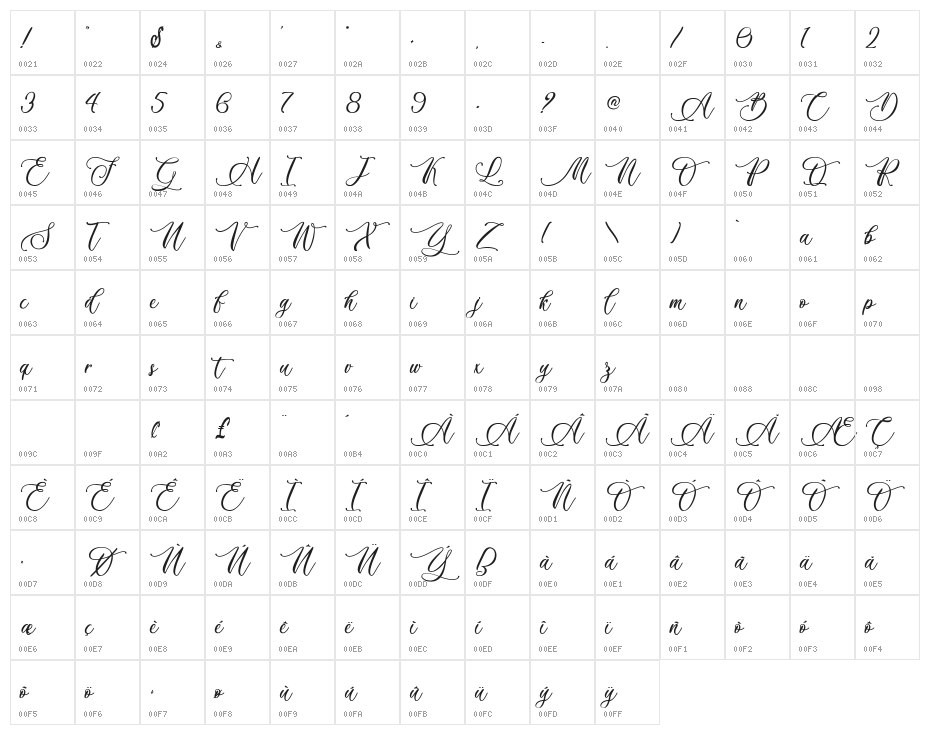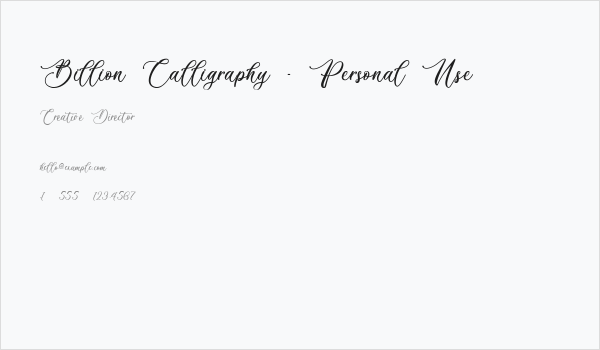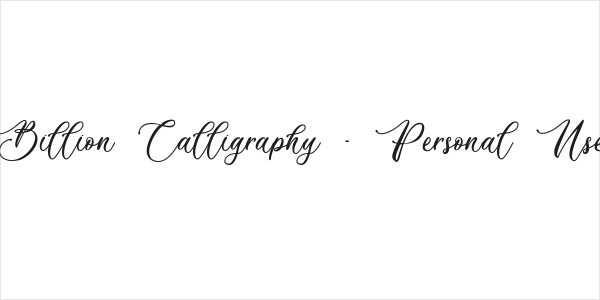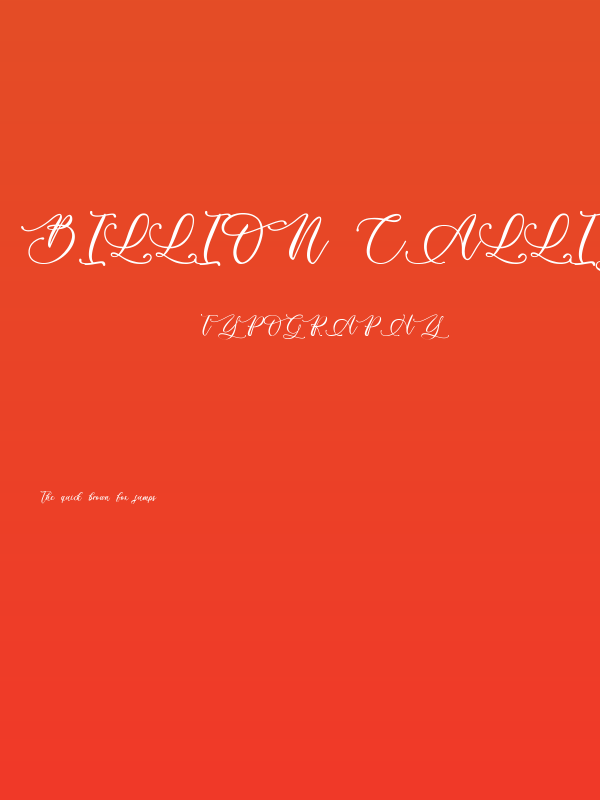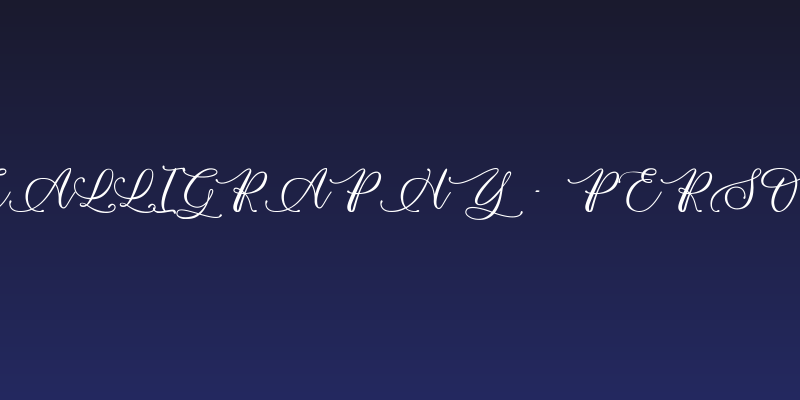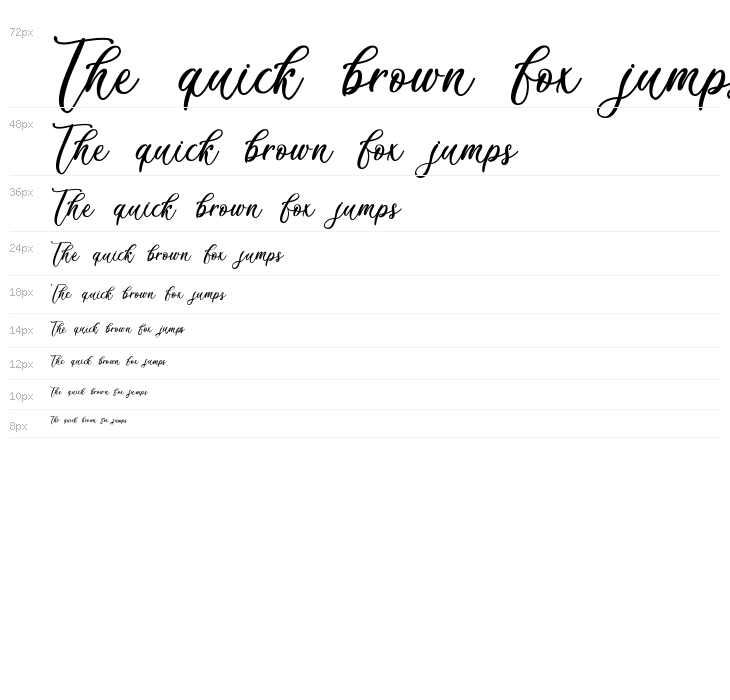
Billion Calligraphy - Personal Use Font
Billion Calligraphy - Personal Use Description
This elegant calligraphy font features flowing, interconnected letters with a classic script style. The uppercase letters are ornate, with graceful loops and flourishes, while the lowercase letters maintain a consistent, smooth flow. The numerals are stylish and complement the overall aesthetic. Special characters are designed with the same attention to detail, adding a touch of sophistication. The font's overall appearance is both artistic and readable, making it suitable for a variety of creative projects.
| Proposed Projects | Ideal for wedding invitations, greeting cards, branding, and elegant logo designs. |